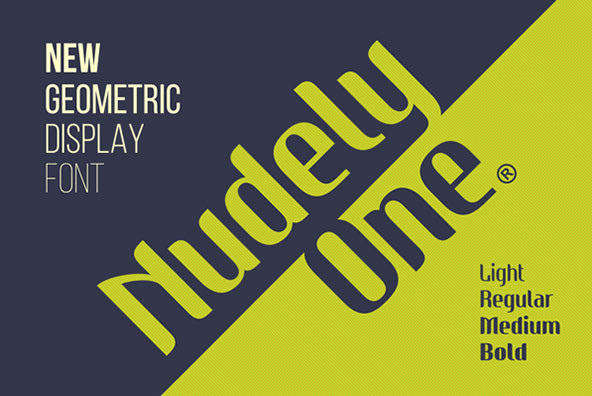
Nudely Font
Nudely Font is perfect for natural beauty brands, minimalist lifestyle campaigns, organic skincare packaging, wellness center materials, authentic personal care products, natural health branding, mindful wellness campaigns, pure beauty marketing, and honest lifestyle designs.
What makes Nudely Font exciting is its refreshingly honest character that celebrates the beauty of natural authenticity through clean, unadorned letterforms that embody the pure essence of being genuinely yourself. The font features stripped-down elegance with organic simplicity that communicates transparency, honesty, and the confident beauty that comes from embracing natural truth without artificial enhancement. Its authentic design philosophy and natural appeal make it perfect for brands that want to communicate purity, genuine wellness, and the liberating confidence that comes from authentic self-acceptance while creating memorable experiences that celebrate natural beauty in its most honest form.
Nudely Font family includes various natural weights such as Light, Regular, Medium, and Bold variations, often featuring organic stylistic alternates and minimalist decorative elements. The family may include pure symbols, natural ornaments, and honest ligatures that enhance the font's authentic aesthetic, providing designers with comprehensive options for creating genuine typographic compositions that celebrate natural beauty and authentic living.